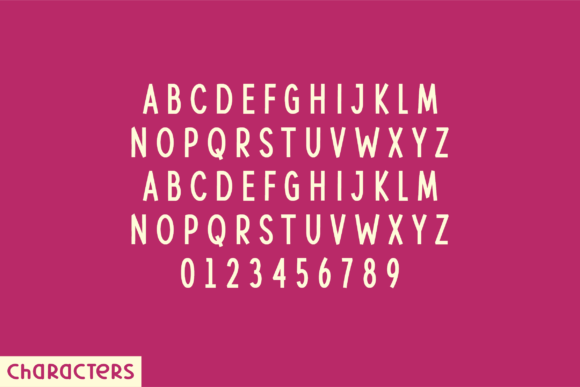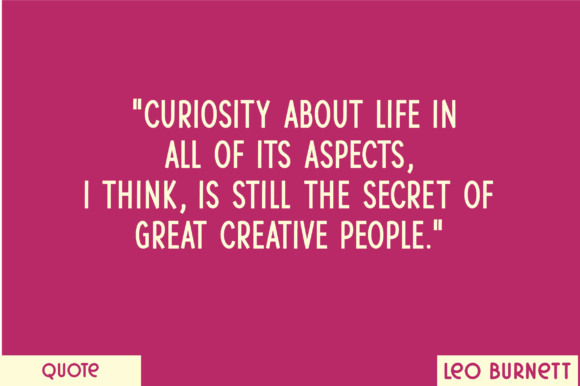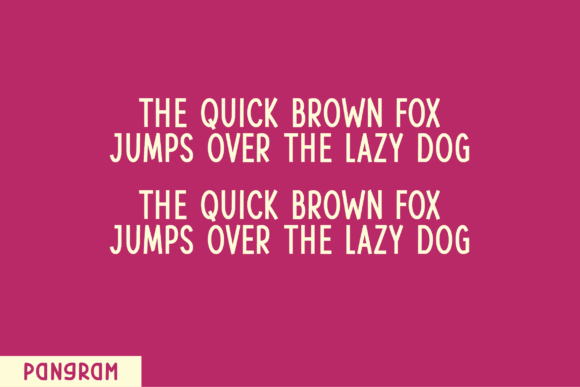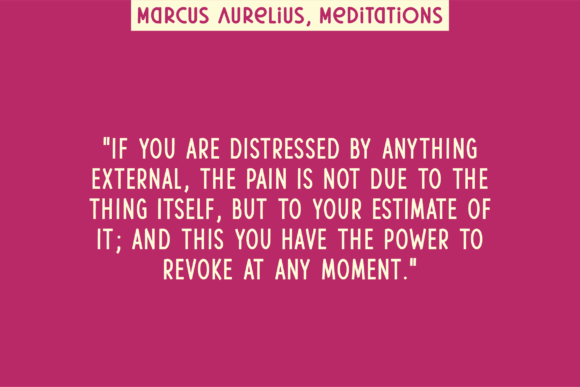
Ceviche Font: The Unique Sans Serif for Creative Designs
In the world of typography, a new font has emerged that is making waves among designers and crafters alike. Meet Ceviche, a natural sans serif font that boasts a unique feature – it was created without changing a single node in each character’s indentation. This distinctive approach has resulted in a font that is not only visually appealing but also refreshingly different from the usual sans serif fonts.
The Story Behind Ceviche Font
Ceviche is a font that is deeply rooted in simplicity and authenticity. Its creator’s goal was to craft a font that would exude a natural and effortless feel, reminiscent of handwriting. To achieve this, they employed a unique technique where no nodes were altered in the characters’ indentation. This approach allowed the font to maintain its organic and unpolished charm, making it perfect for designs that require a personal touch.
Characteristics of Ceviche Font
Ceviche is a sans serif font, which means it doesn’t have the small lines or flourishes at the ends of the letters. This gives it a clean and modern look that is perfect for a wide range of design applications. Here are some key characteristics that make Ceviche stand out:
- Unique Indentation: As mentioned earlier, Ceviche’s creator didn’t alter a single node in each character’s indentation. This results in a font that has a distinctive, hand-crafted feel.
- Natural and Organic: Ceviche has a very natural and organic look, making it perfect for designs that require a personal touch.
- Clean and Modern: Despite its unique indentation, Ceviche still maintains a clean and modern look that is characteristic of sans serif fonts.
Use Cases for Ceviche Font
Ceviche is a versatile font that can be used in a wide range of design applications. Here are some use cases where Ceviche shines:
- Quotes and Notes: Ceviche’s unique style makes it perfect for quotes and notes. Its natural and organic look adds a personal touch to any text.
- T-Shirts and Apparel: Ceviche’s clean and modern look makes it a great choice for t-shirt and apparel designs.
- Product Design: Ceviche can be used in a wide range of product design applications, from packaging to branding.
Why Designers and Crafters Love Ceviche Font
Designers and crafters love Ceviche for several reasons:
- Uniqueness: Ceviche’s unique indentation sets it apart from other sans serif fonts.
- Versatility: Ceviche can be used in a wide range of design applications.
- Ease of Use: Ceviche is easy to read and works well in both digital and print formats.
Tips for Using Ceviche Font
Here are some tips for using Ceviche effectively in your designs:
- Pair it with Other Fonts: Ceviche works well when paired with other fonts. Try pairing it with a serif font for a contrasting look.
- Experiment with Colors: Ceviche works well in a variety of colors. Experiment with different colors to find the one that works best for your design.
- Use it for Headings and Titles: Ceviche’s unique style makes it perfect for headings and titles.
Ceviche is a unique and versatile font that is perfect for designers and crafters looking to add a personal touch to their designs. Its natural and organic look, combined with its clean and modern style, makes it a great choice for a wide range of design applications. Whether you’re designing quotes, notes, t-shirts, or product packaging, Ceviche is a font that is sure to impress.